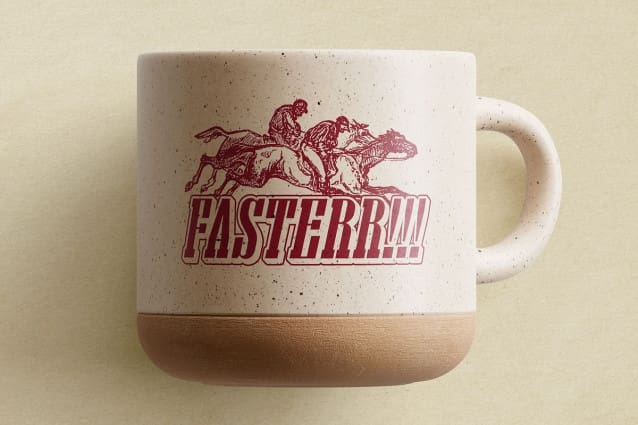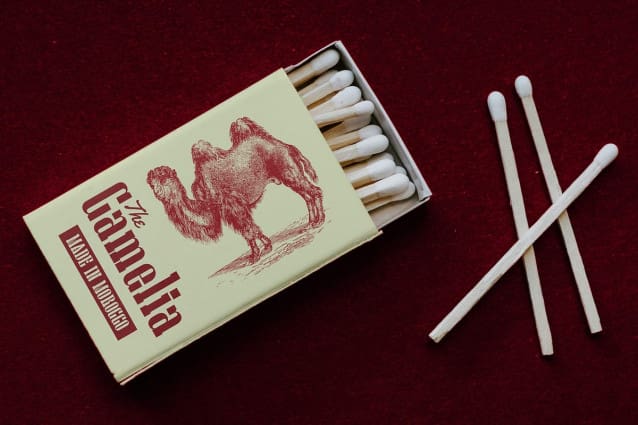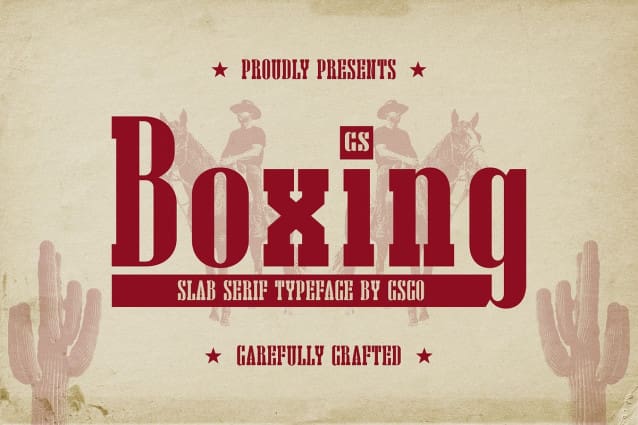
CS Boxing Font
CS Boxing – Retro Font is a vintage slab serif typeface that exudes strength, confidence, and timeless appeal. Inspired by classic Americana, old-school boxing posters, and Western typography, this font captures the essence of rugged adventure and bold expression. Its thick, blocky letterforms ensure a commanding presence, making it a perfect choice for designs that require impact and nostalgia.
Sturdy and Bold Letterforms With its strong, well-defined serifs and structured proportions, CS Boxing radiates durability and confidence. The robust letterforms are designed to make a bold statement, whether used in headlines, signage, or branding. The balance between vintage charm and modern usability makes this font a versatile tool for a wide range of creative applications.
Perfect for Western and Vintage-Themed Designs CS Boxing is ideal for Western-inspired designs, classic posters, cowboy flyers, and retro branding. It evokes the atmosphere of old saloons, rodeos, and historical advertisements, making it a great choice for projects that aim to revive the aesthetics of the past.
Nostalgic Appeal with a Modern Edge While deeply rooted in vintage design traditions, CS Boxing also fits contemporary retro-style projects, bridging the gap between the past and present. It offers a nostalgic yet fresh appeal, allowing designers to create striking visuals that stand out.